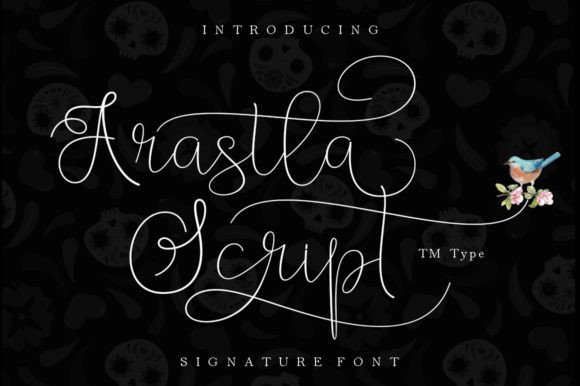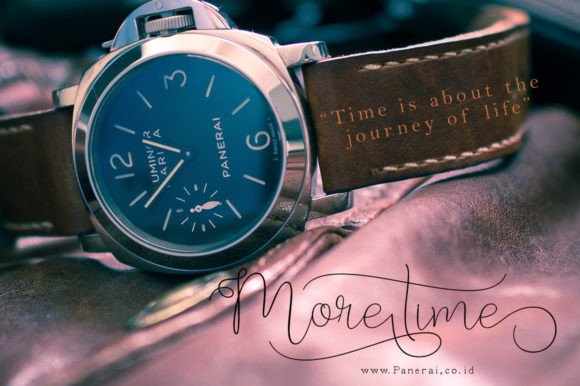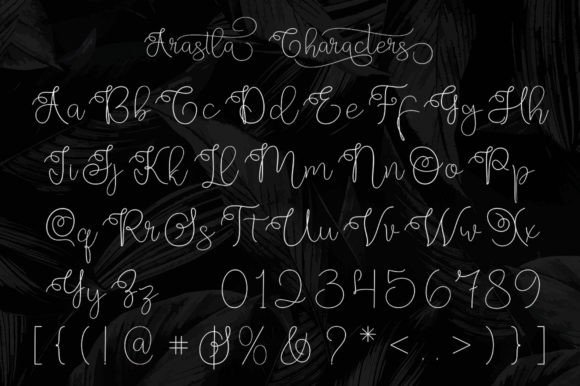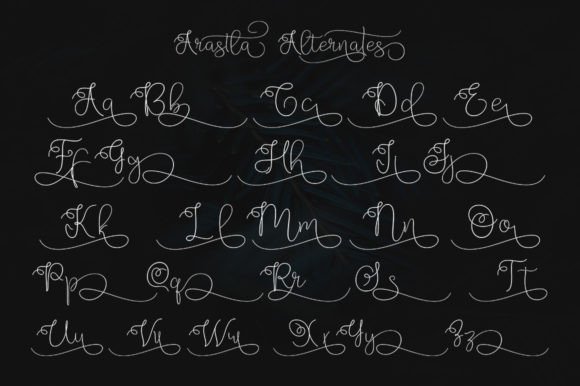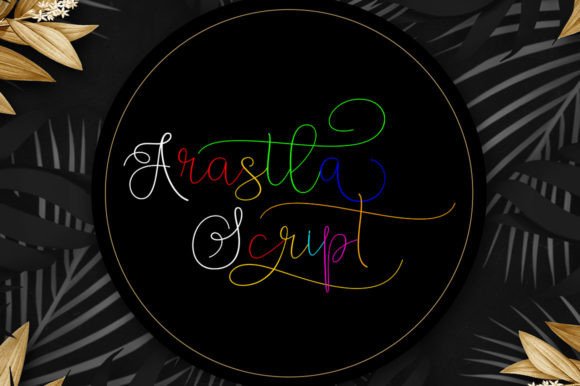
About Arastla Script Font
Arastla Script Font is a stylish and unique signature typeface designed to leave a memorable impression. Its elegant and flowing strokes make it ideal for branding projects, photo overlays, watermarks, business cards, invitations, and more. Arastla Script adds a personal and sophisticated touch to your creative work.
Stylish and Unique Signature Design
Arastla Script features smooth, natural letterforms that emulate authentic handwriting with a flair for style. This font’s distinctive look helps your projects stand out, making it perfect for logos and personal branding where uniqueness matters.
Ideal Uses for Arastla Script Font
This versatile font is perfect for:
Unique branding and logos
Photo overlays and watermarks
Business cards and stationery
Wedding and event invitations
Social media graphics and digital marketing
Its elegant style enhances a wide range of creative applications.
Why Choose Arastla Script Font?
Designers appreciate Arastla Script for its:
Stylish and memorable signature style
Smooth, flowing letterforms
These features make Arastla Script a practical and elegant font choice.
Add Sophistication and Personality to Your Designs
Typography plays a key role in branding and personal expression. Arastla Script adds sophistication and uniqueness to your designs, helping you connect authentically with your audience. Whether for branding, invitations, or creative projects, this font elevates your work.
In conclusion, Arastla Script Font is a stylish and unique signature script perfect for designers seeking memorable and elegant typography. Add Arastla Script to your font collection to create standout and sophisticated designs.